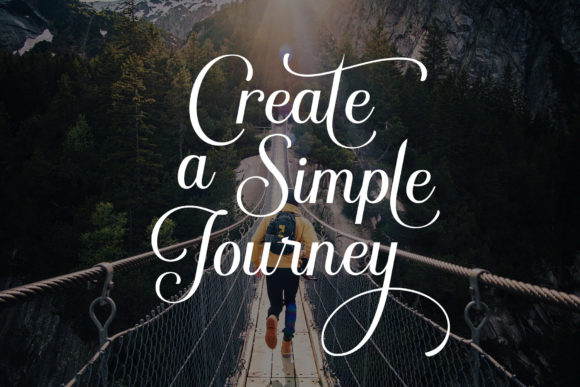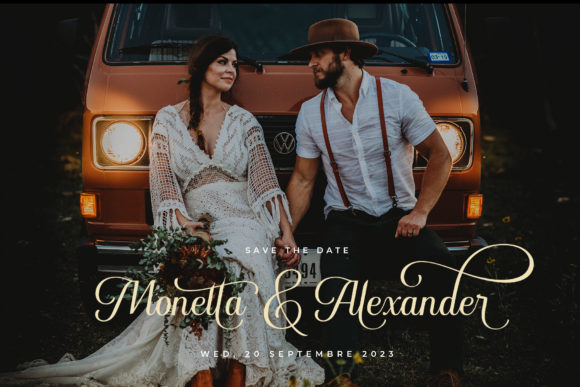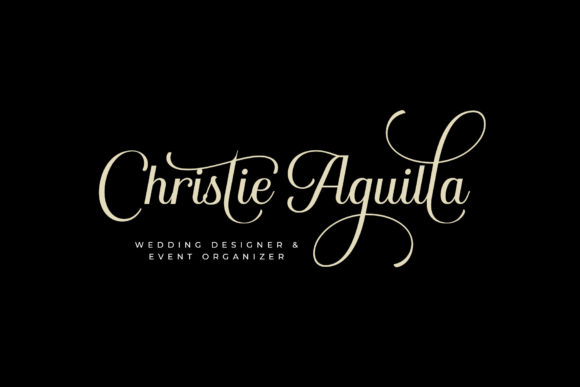
Introduction to Santillana Daughter Font
Santillana Daughter is a lovely and delicate script font that exudes elegance and class.
This font was particularly crafted for those who need a beautiful and refreshing look to their designs Santillana Daughter is PUA encoded which means you can access all of the glyphs and swashes with ease.
Santillana Daughter Font offers exceptional quality and versatility, making it a valuable addition to your design toolkit. Whether you’re creating for personal projects or commercial use, Santillana Daughter Font delivers professional results.